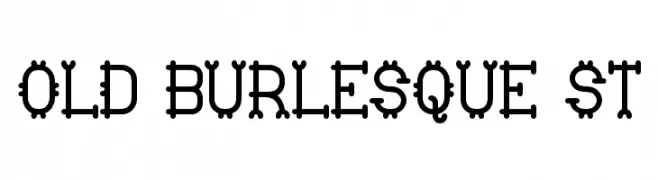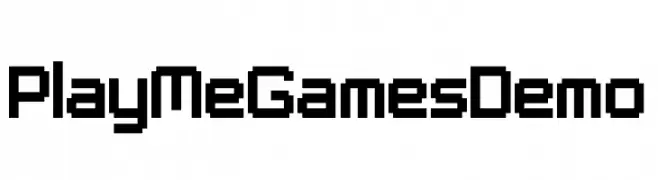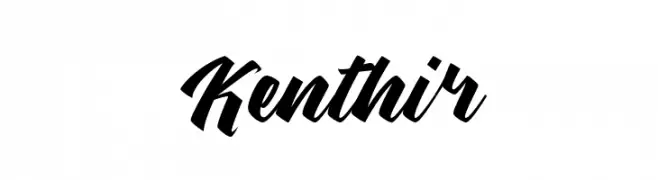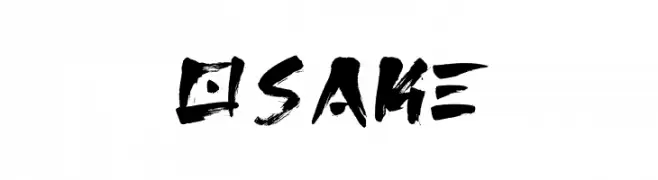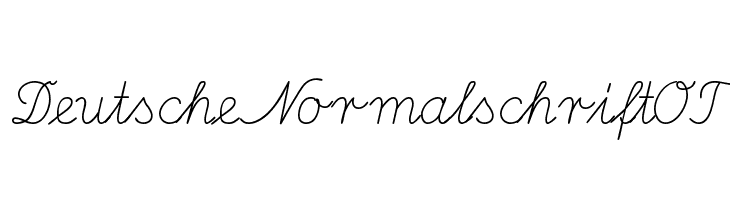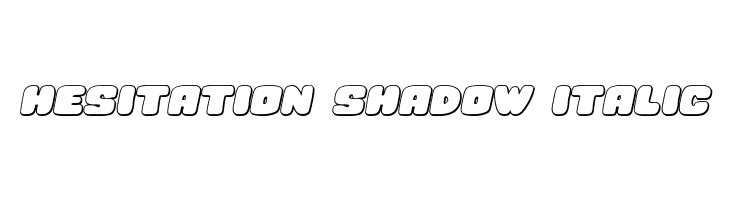
A decorative font with vintage burlesque flair, featuring circular embellishments on each character.
A bold serif font with high contrast and classic elegance.
A bold, pixelated font inspired by classic video game graphics.
A bold, playful font with a cartoon-like, quirky style.
Bold, italic slab serif font with strong, dynamic strokes.
A modern, clean font with smooth curves and a balanced structure.
A bold, dynamic script font with fluid, connected strokes and a slight slant.
A bold, brush-stroke style font with a dynamic and artistic flair.
An elegant and flowing script font with intricate, decorative letterforms.